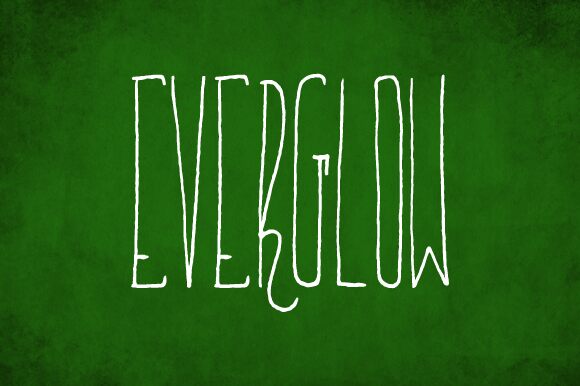
Everglow by Matthew Tyndall is a free handwritten font with exceptionally tall, threadlike letters. Its strokes wander gently, with narrow loops, stretched uprights, and a loose baseline that recalls quick pen lettering. The uneven forms feel delicate rather than polished.
It is especially convincing on fashion editorial covers, where the slim irregular writing can suggest a designer's rough notes. Boutique branding and informal invitations also suit its intimate scale and lightly wavering line. In album artwork, the letters can echo hand-drawn figures or fine linear illustrations.